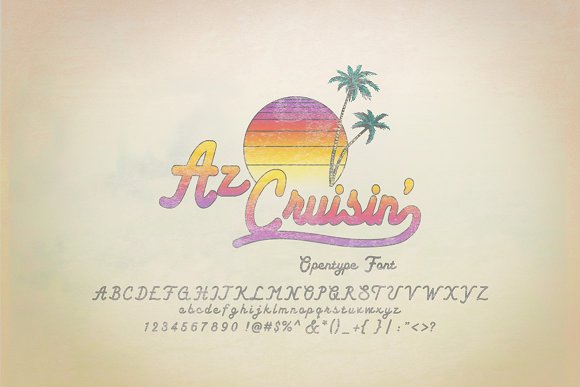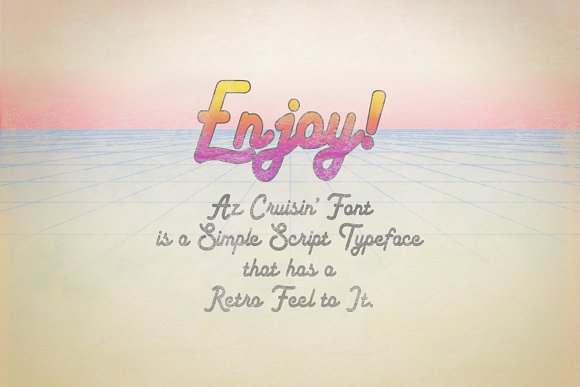
AZ Cruisin Font
About AZ Cruisin Font
A beautiful 70’s vintage poster inspired font with the ultimate summer feeling.
The AZ Cruisin font is great for shirt designs and works great for both digital and printed work.